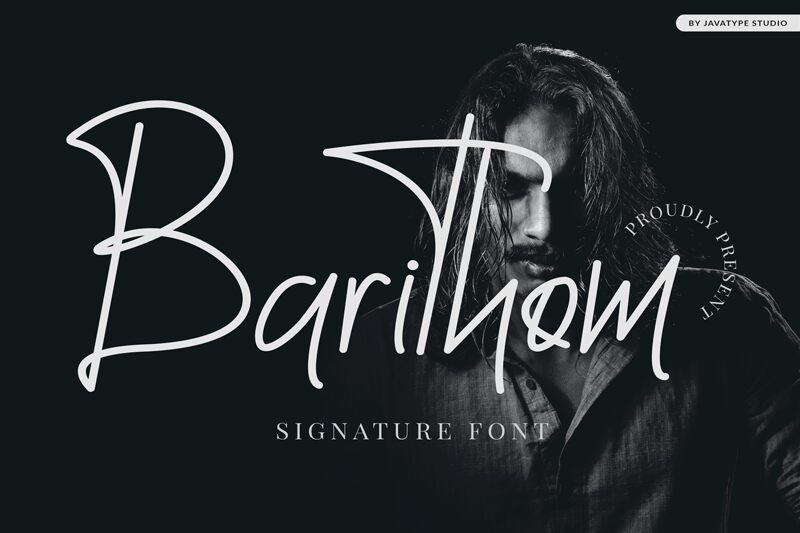
Barithom is a signature monoline font with an elegant and classy style for your perfect project designed by Tio Yulianto.
Barithom Signature
Tio Yulianto